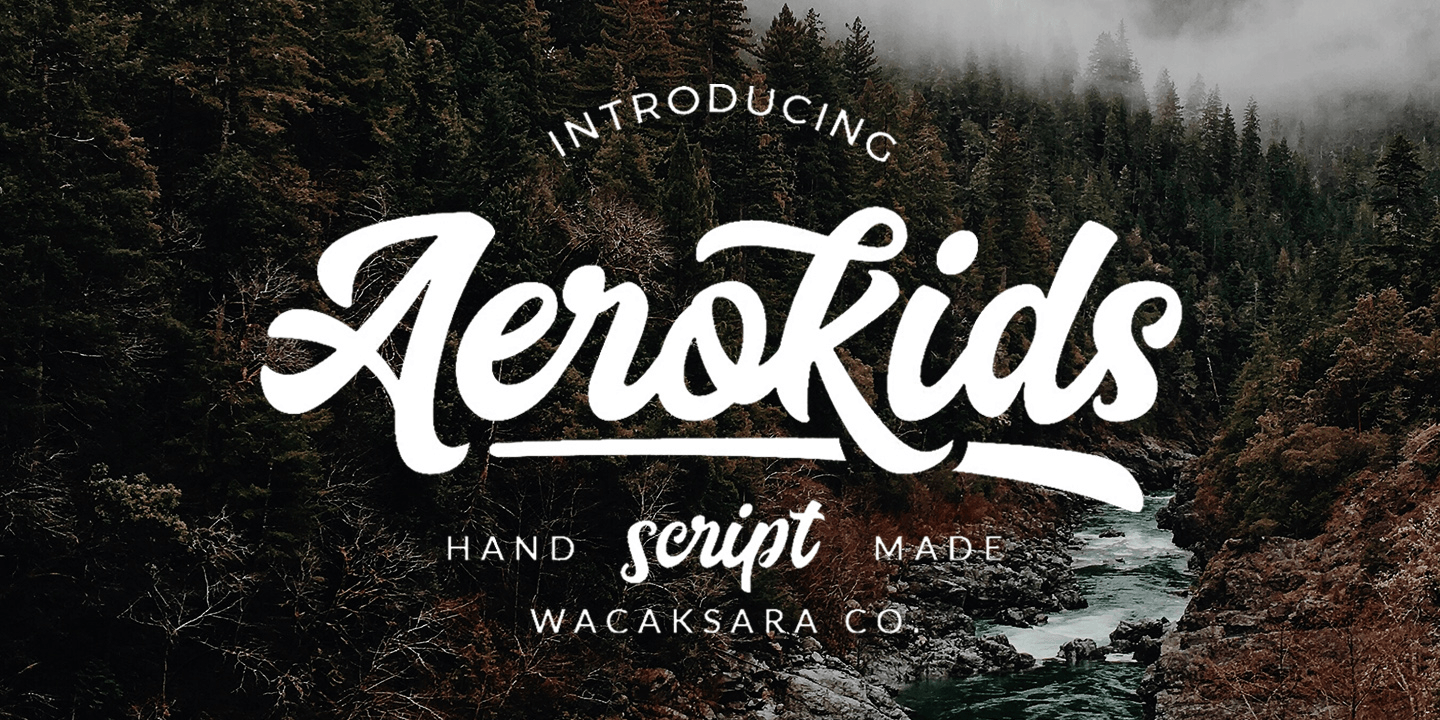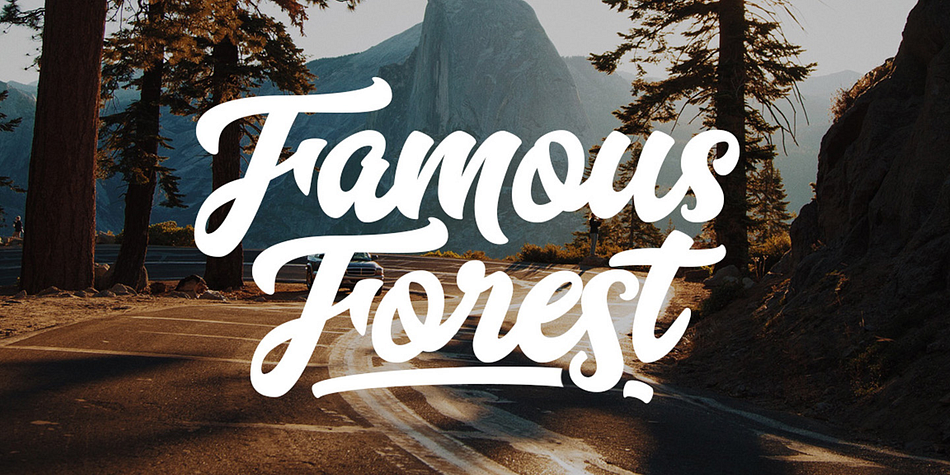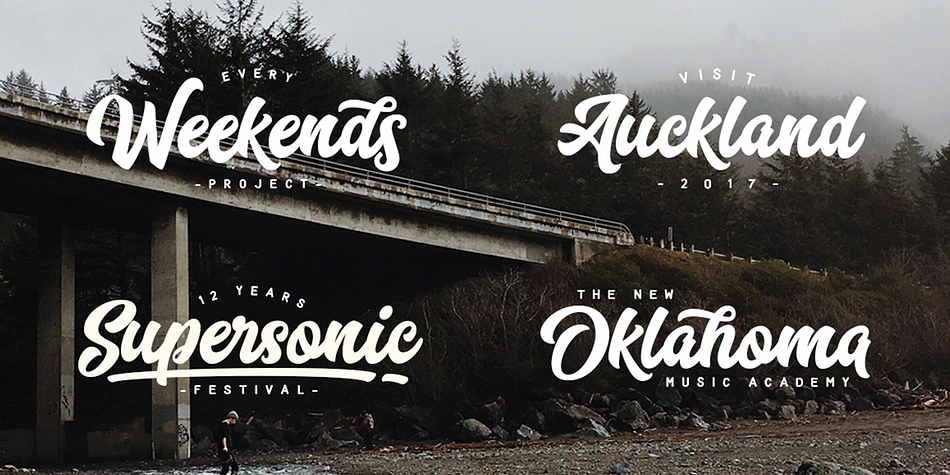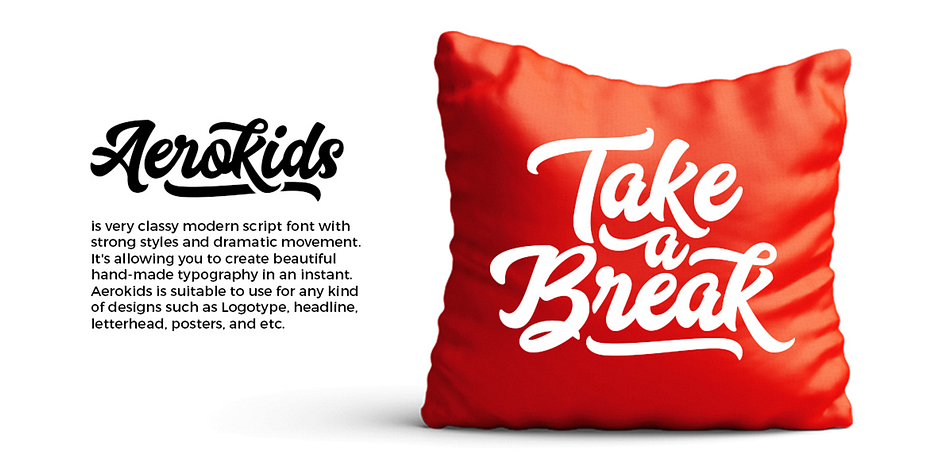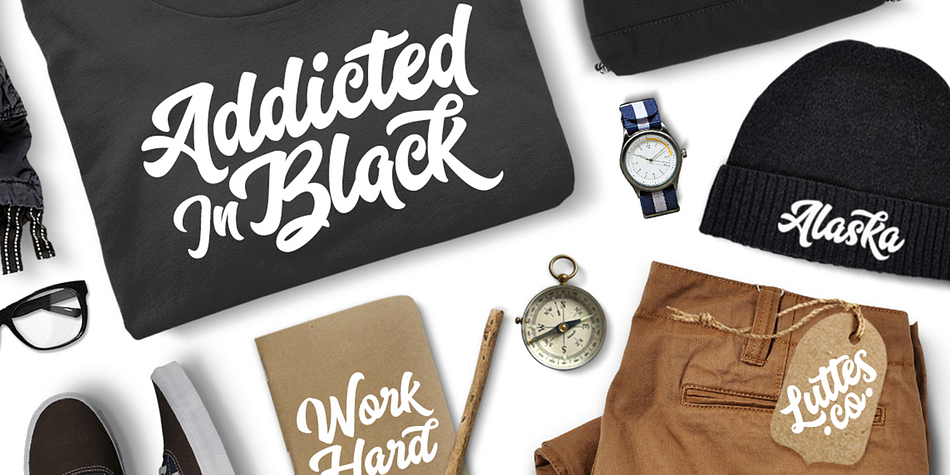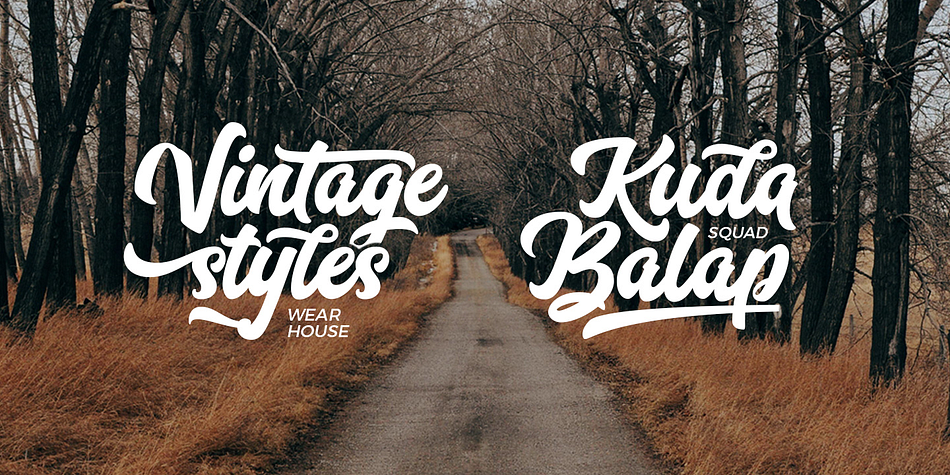
Designed by Hamam Jauhari and Aliv Pandu, Aerokids is a dingbat and brush script font family. This typeface has two styles and was published by Wacaksara Co.
This font is inspired by an old American tv show showing baseball and basketball culture. Aerokids is a bold connected script font with a clear style and dramatic movement.
Aerokids comes with uppercase, lowercase, numerals, punctuations and many variations on each character, include OpenType alternates, common ligatures and also additional swash to let you customize your designs. Perfect to use for Logotype, Letterhead, Poster, Apparel Design, Labels etc.
Foundry | Wacaksara Co |
Styles | Brush Script, Dingbat |
Designers | Aliv Pandu, Hamam Jauhari |